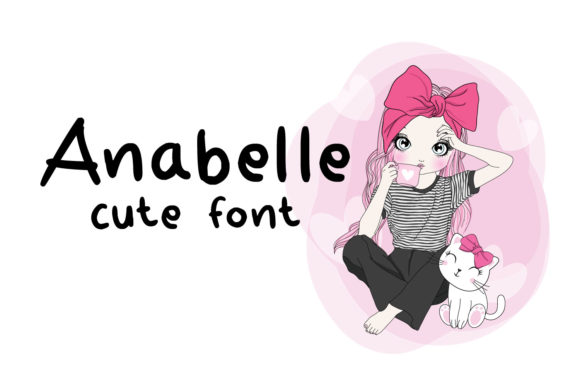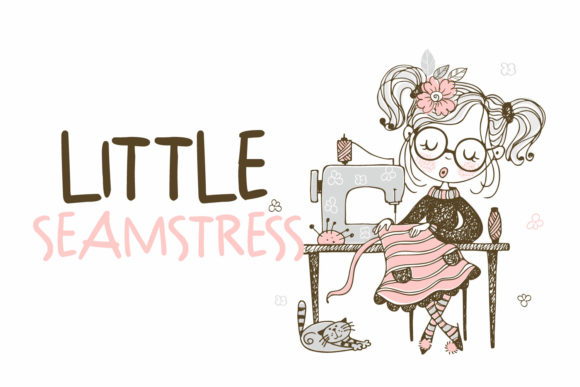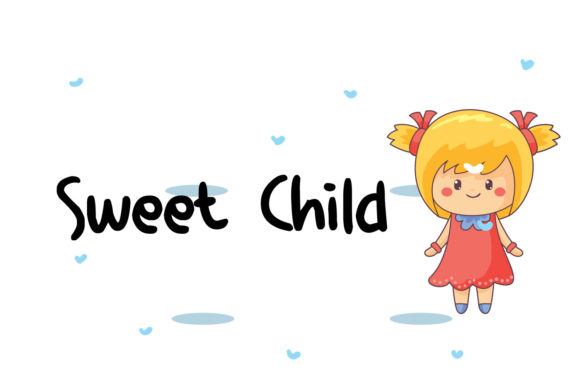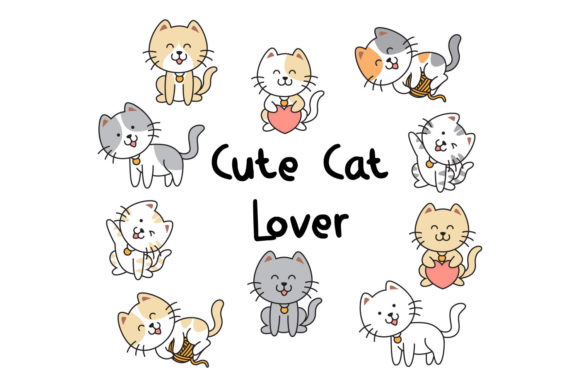
Anabelle Font
About Anabelle Font
Anabelle is a cheerful and friendly handwritten font. It is perfect for illustrations, posters, logos, book covers and much more!
Include this font in your next project and give it a happy personality.